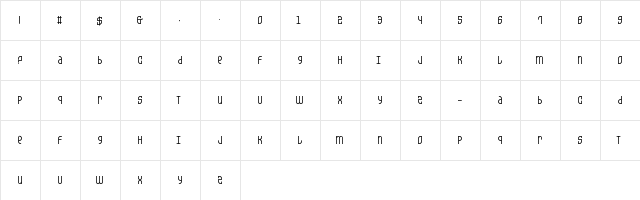
5Champagne Unicase Regular
5Champagne Unicase is a composed and adaptable typeface that performs quietly and consistently across a wide range of design contexts.
Pro Tip: Use 5Champagne Unicase in both headline and body roles to test its range before committing to a single application.